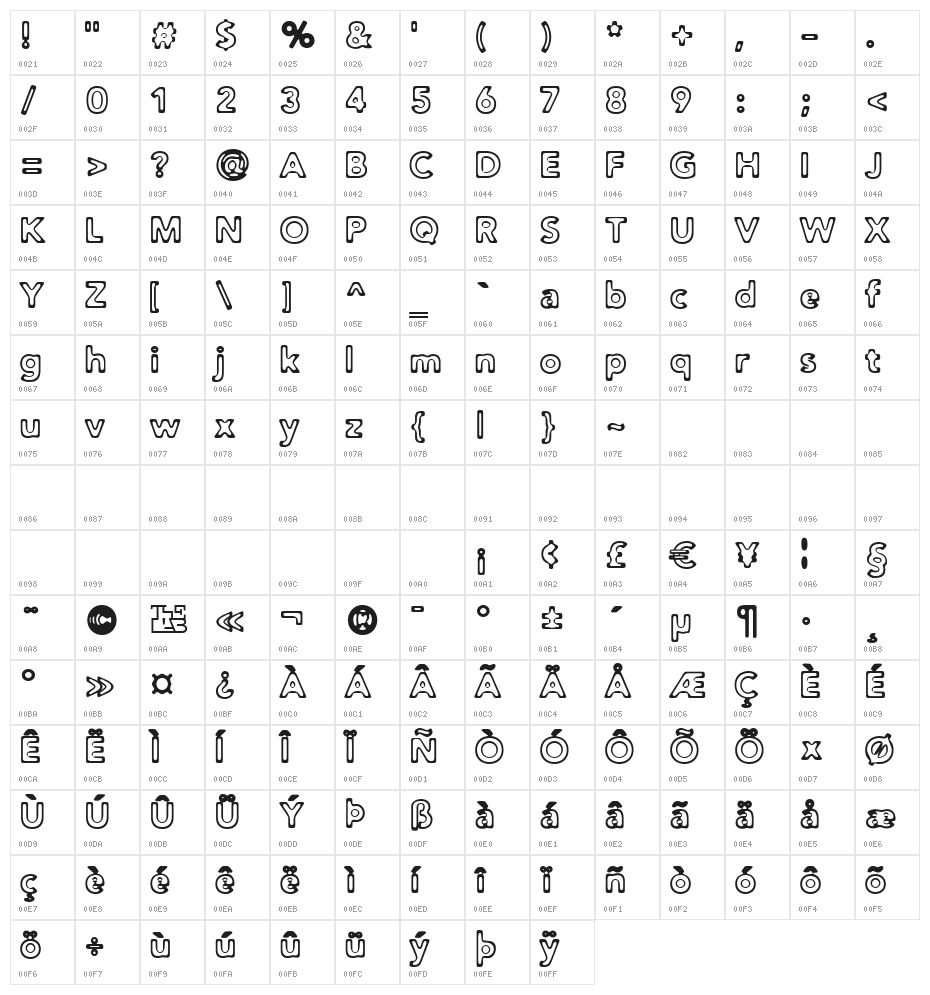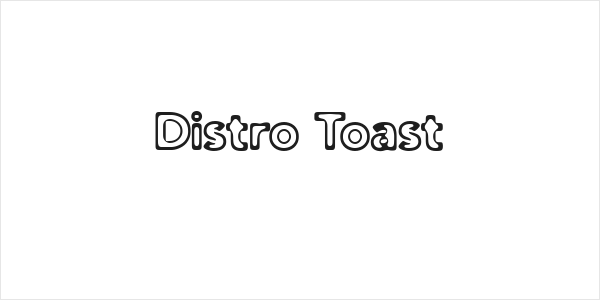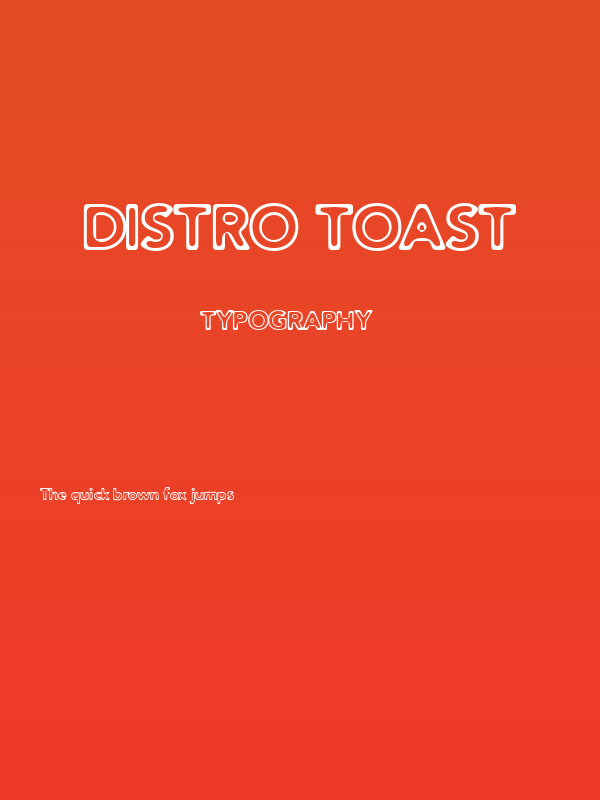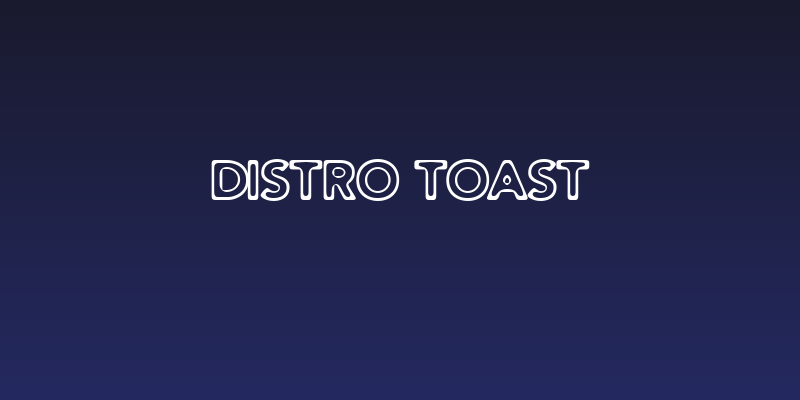
Distro Toast Font
Distro Toast Description
This font features a bold, playful outline style that gives each character a distinct, eye-catching appearance. The letters are rounded and uniform, with a consistent stroke width that creates a cohesive look. The uppercase and lowercase letters maintain a similar style, ensuring readability and visual harmony. The numerals and special characters are designed to match the overall aesthetic, making them suitable for a variety of uses. The font's unique outline effect adds a layer of depth and dimension, making it ideal for designs that require a fun and engaging visual element.
Overall StylePlayful, Modern
Proposed ProjectsIdeal for children's books, playful branding, posters, and creative digital content.